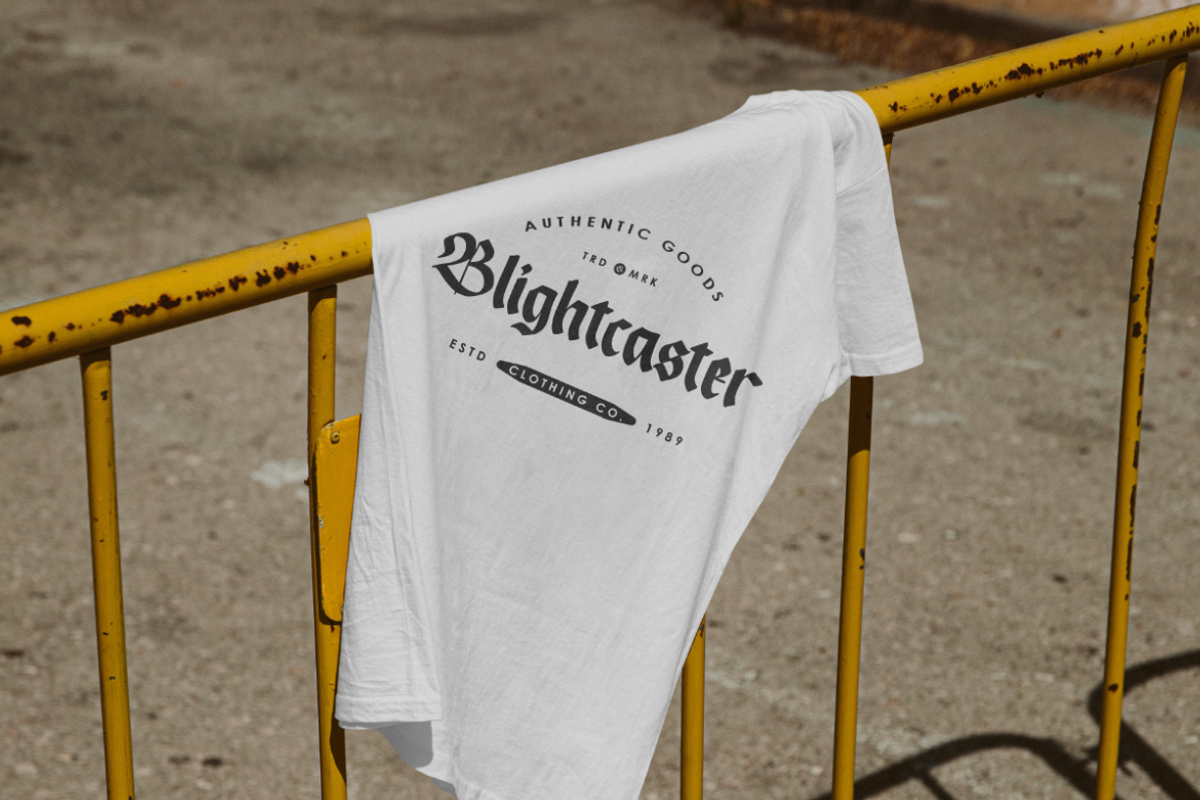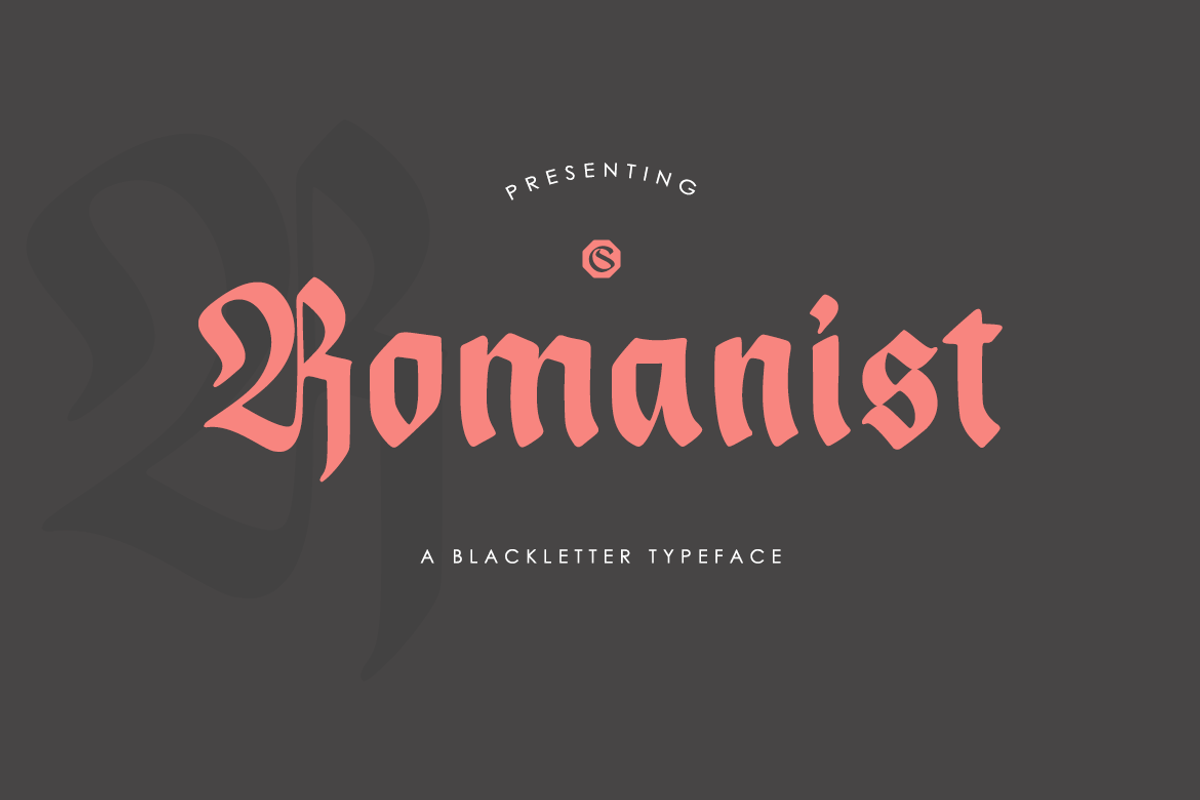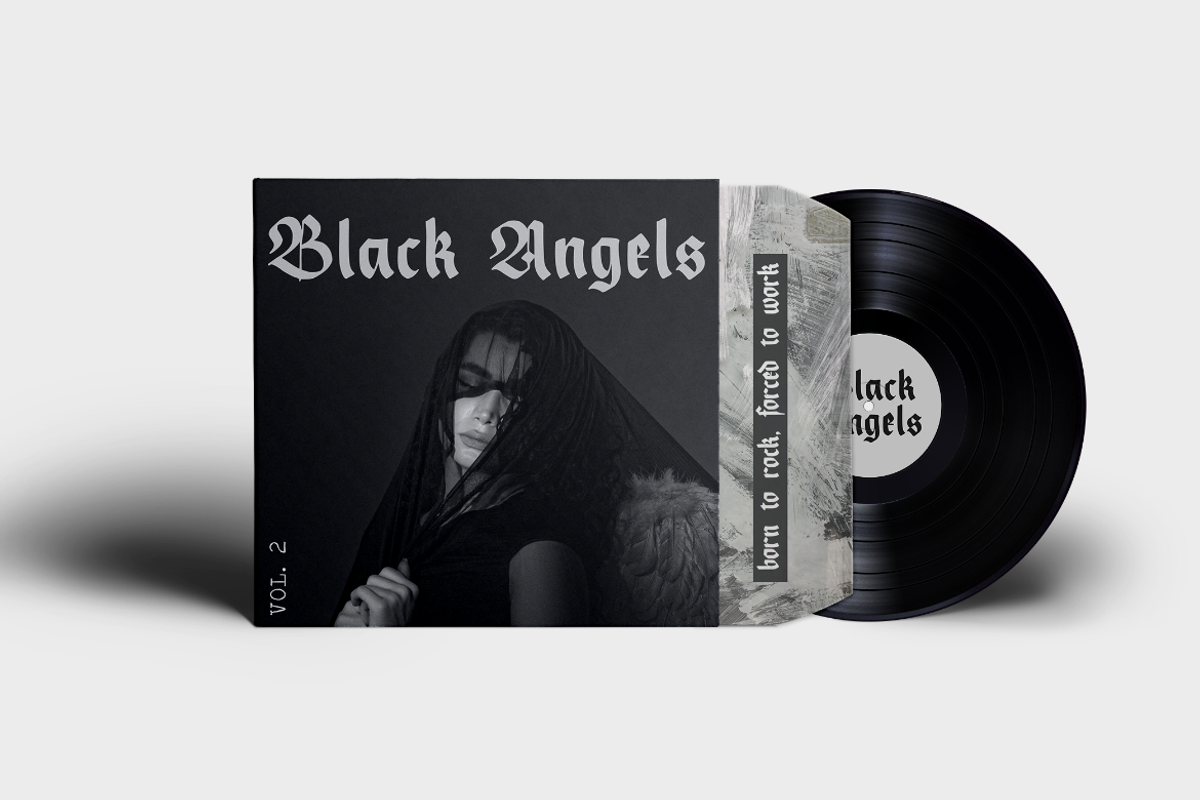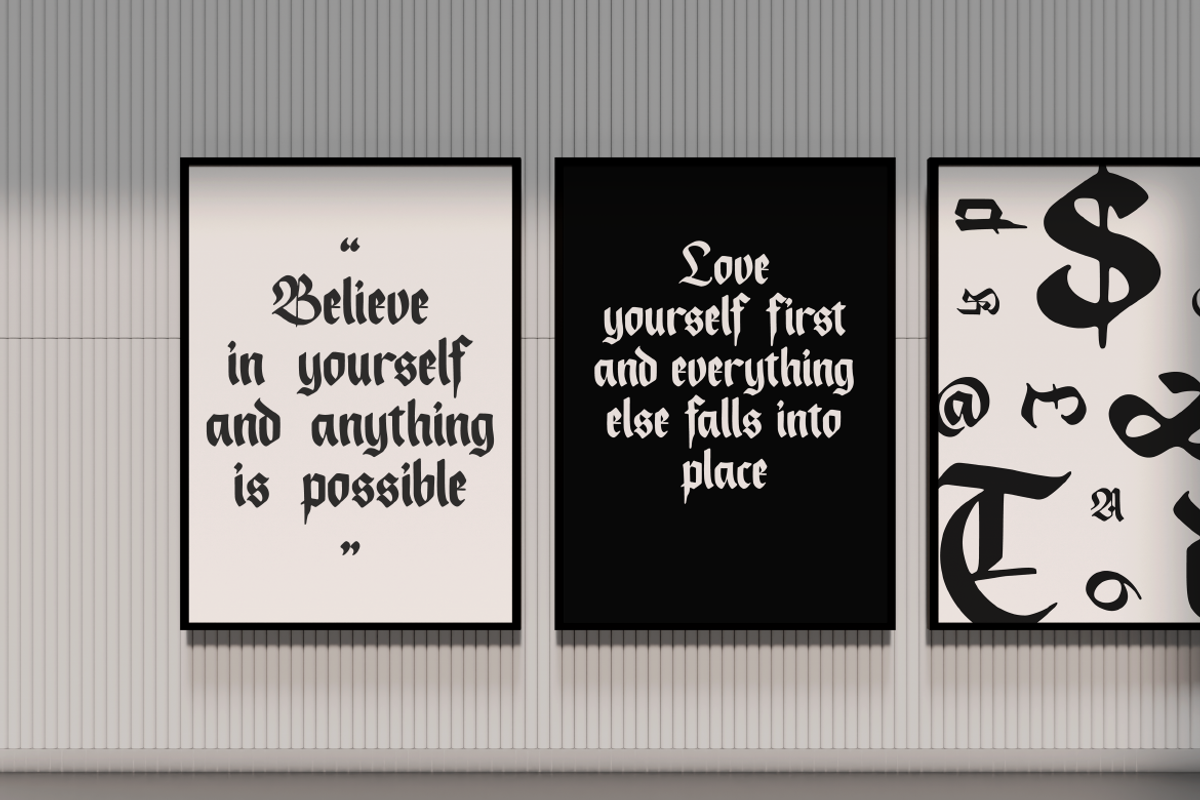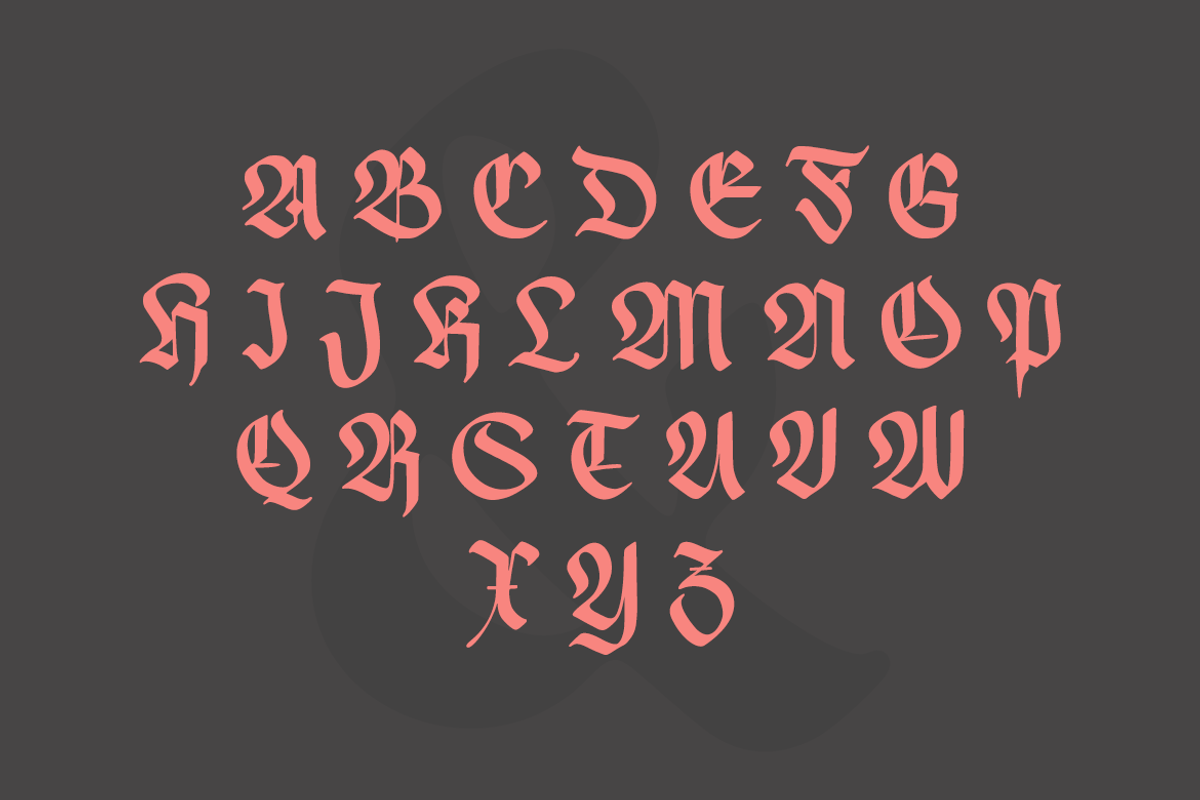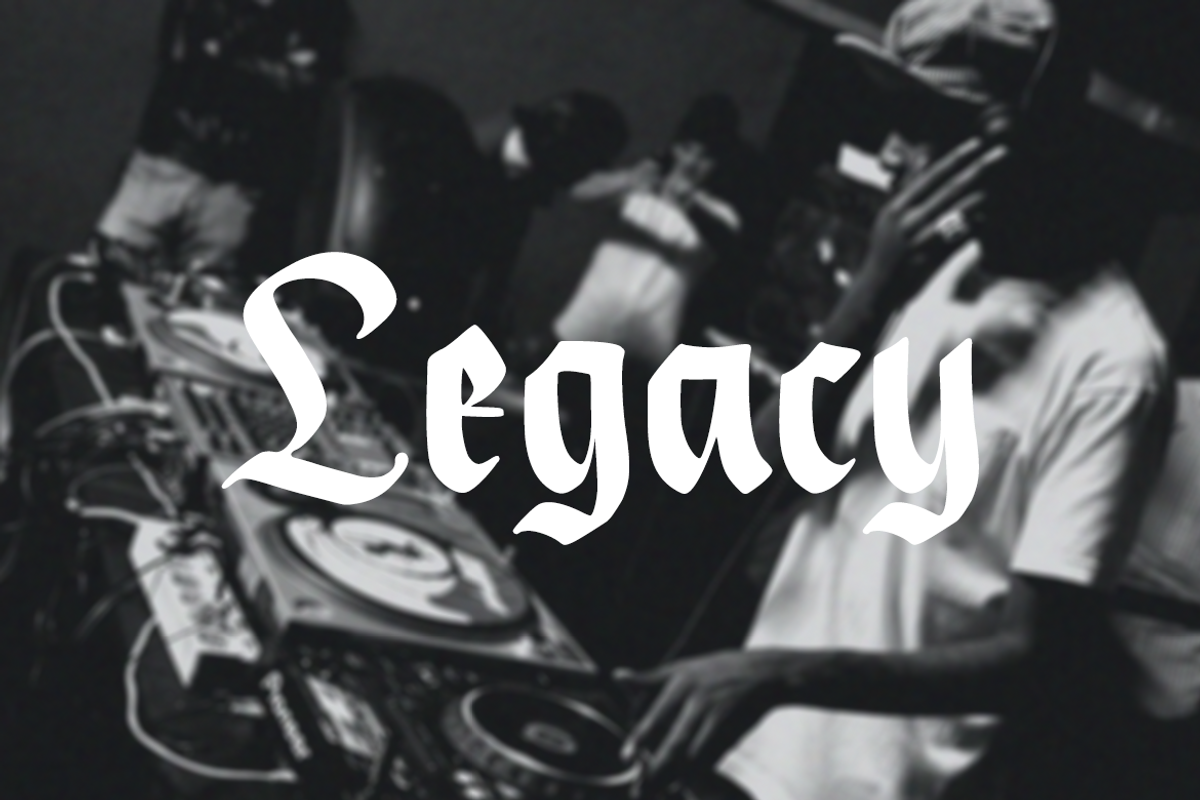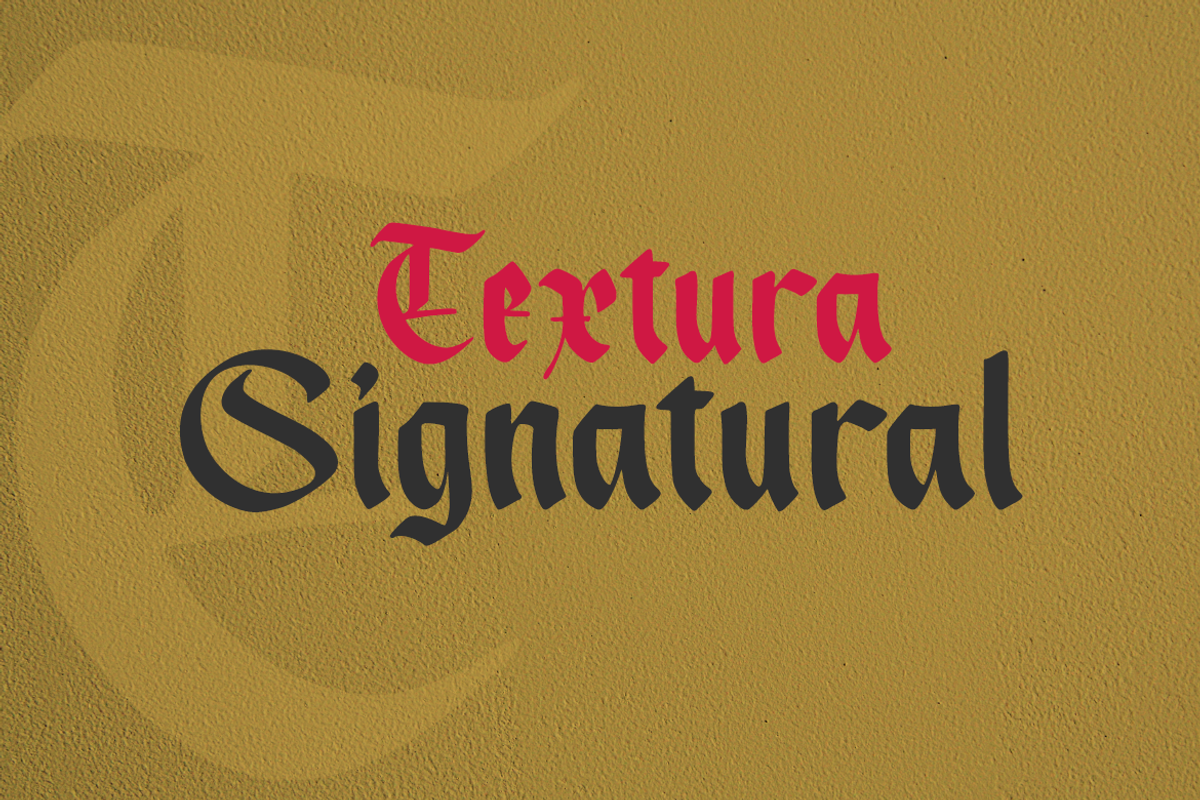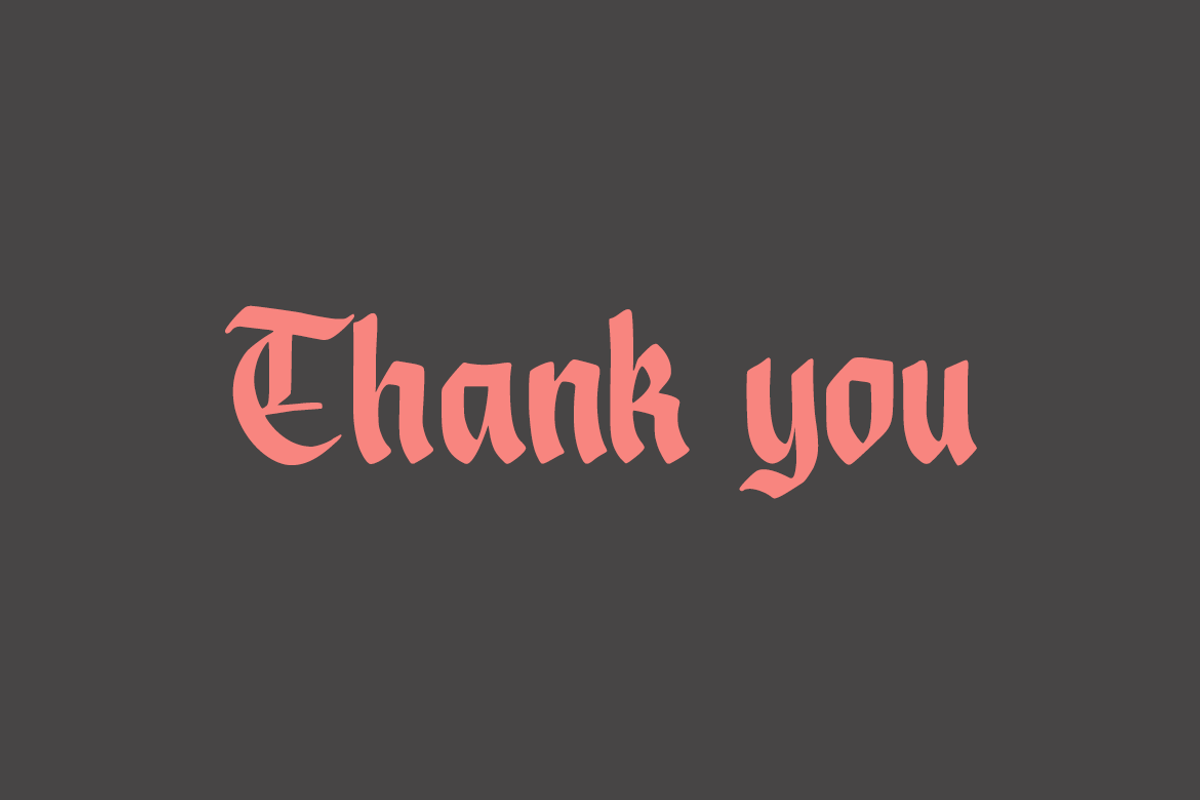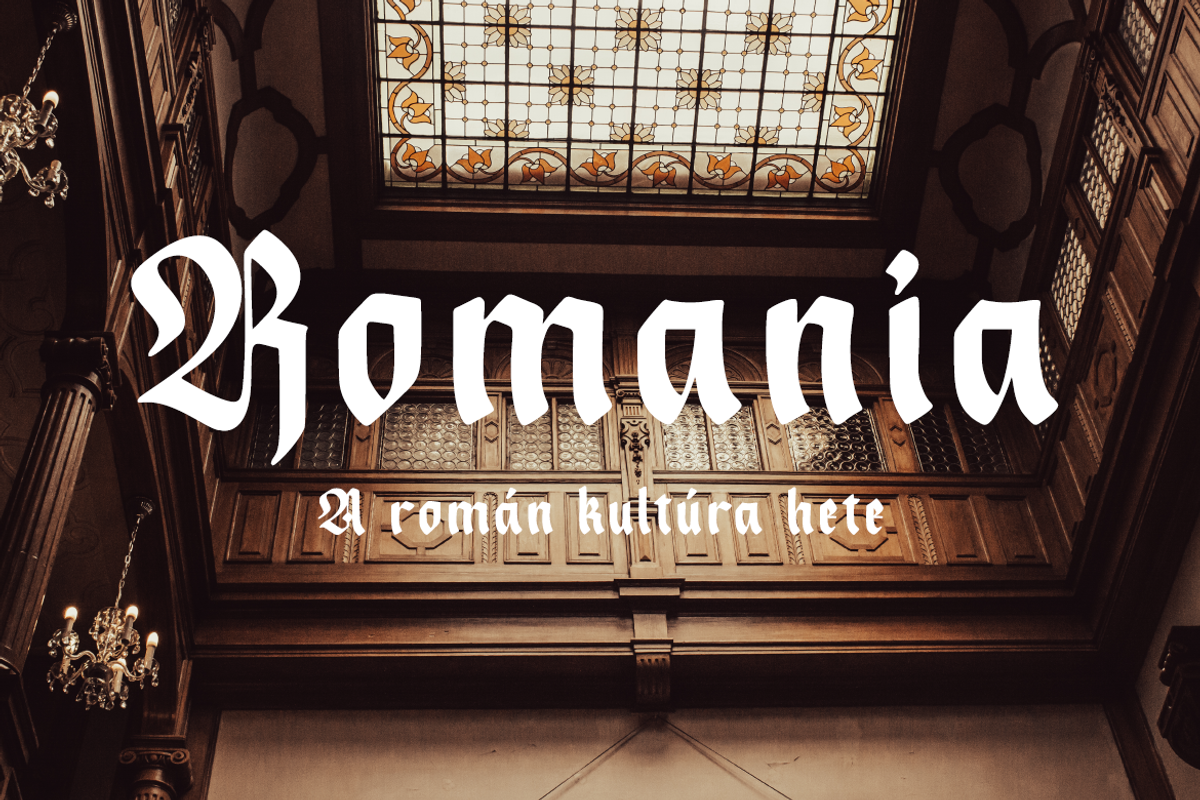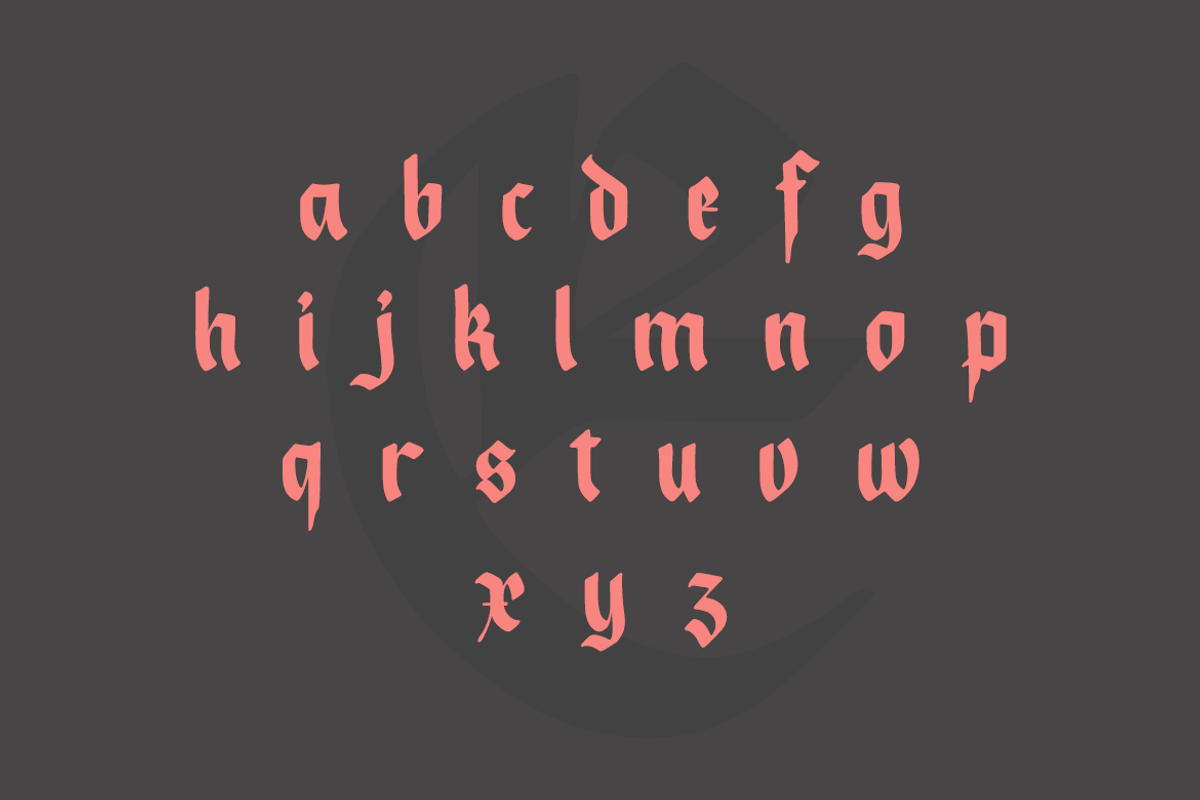
Romanist || Blackletter Typeface
Introducing Romanist - a modern twist on the classic textura/blackletter style font that brings a bold and contemporary edge to your designs. This versatile typeface combines the rich heritage of traditional blackletter with sleek, clean lines and a touch of modern sophistication.
With its distinctive Gothic-inspired letterforms, Romanist adds a touch of elegance and intrigue to any design project. Whether you're creating stunning t-shirt designs, captivating magazine covers, or eye-catching posters, this font is sure to make a statement.
Whether you're a professional graphic designer, a clothing brand, or a magazine publisher, Romanist is your go-to font for adding a touch of sophistication and originality to your designs. Elevate your creative projects to new heights with the timeless allure of Romanist.
Experience the power of Romanist and let your imagination run wild as you create captivating designs that leave a lasting impression.